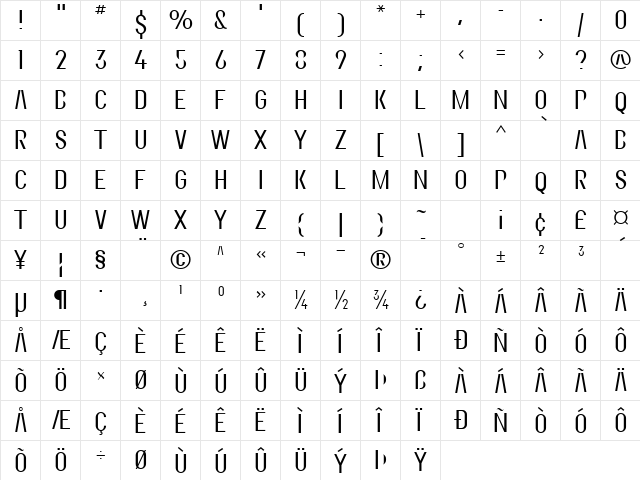
Metropolitan Regular
Design Context for Metropolitan Typeface
Metropolitan takes a measured approach to typography — its balanced proportions and neutral character make it a reliable workhorse for both digital and print work.